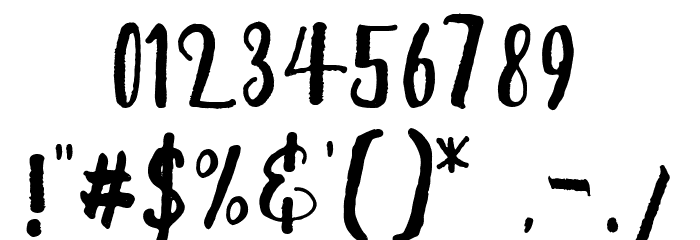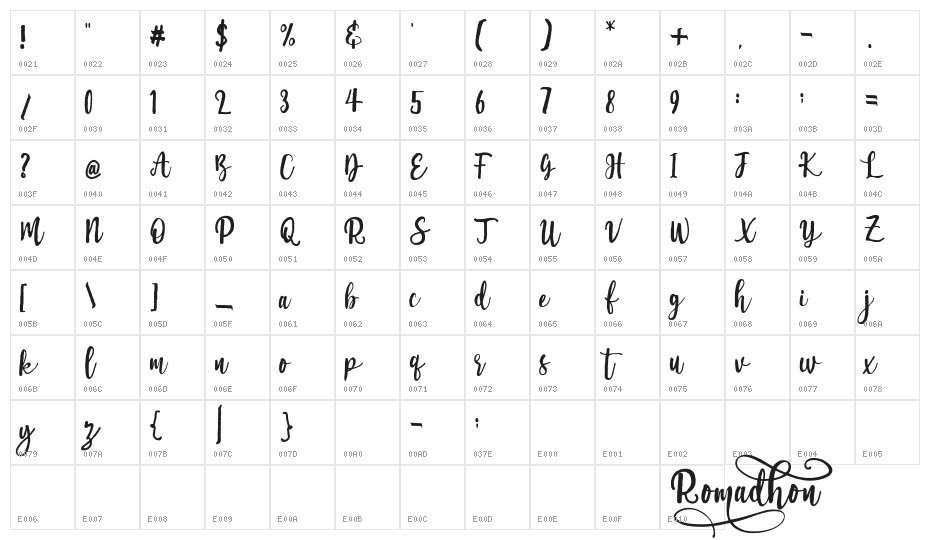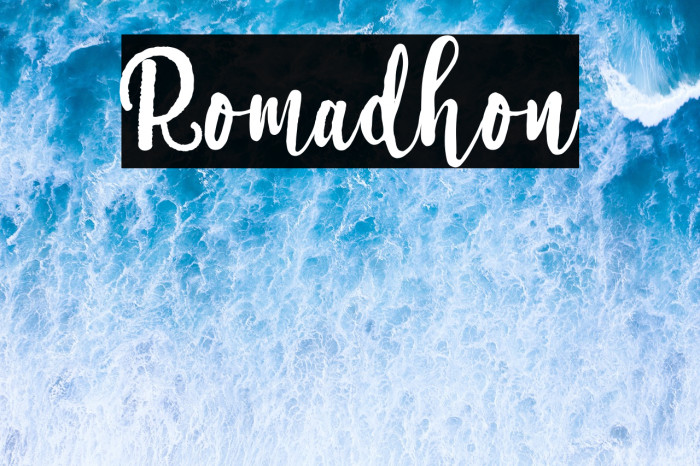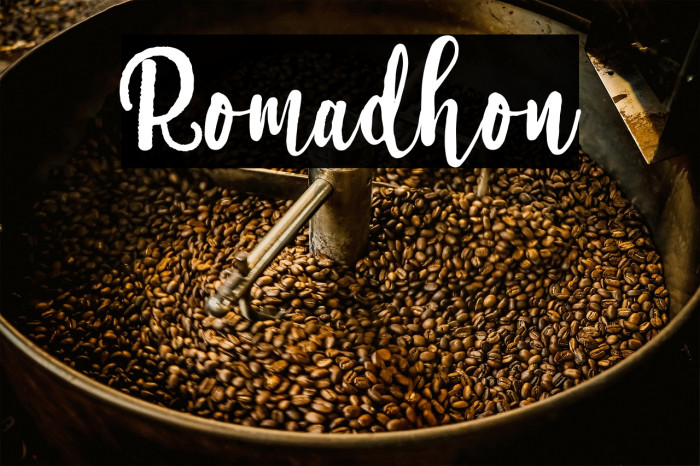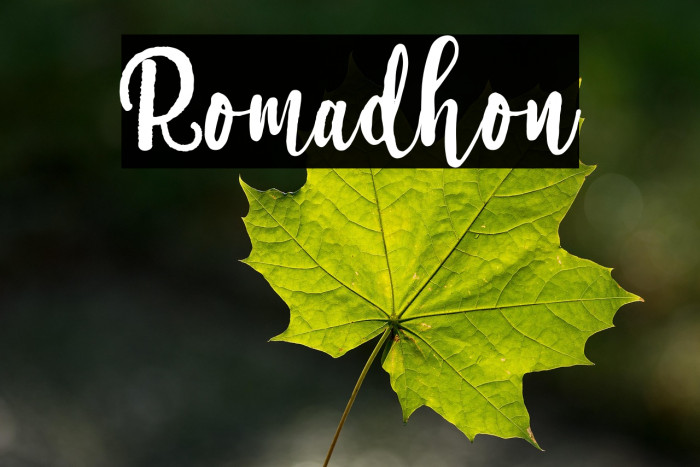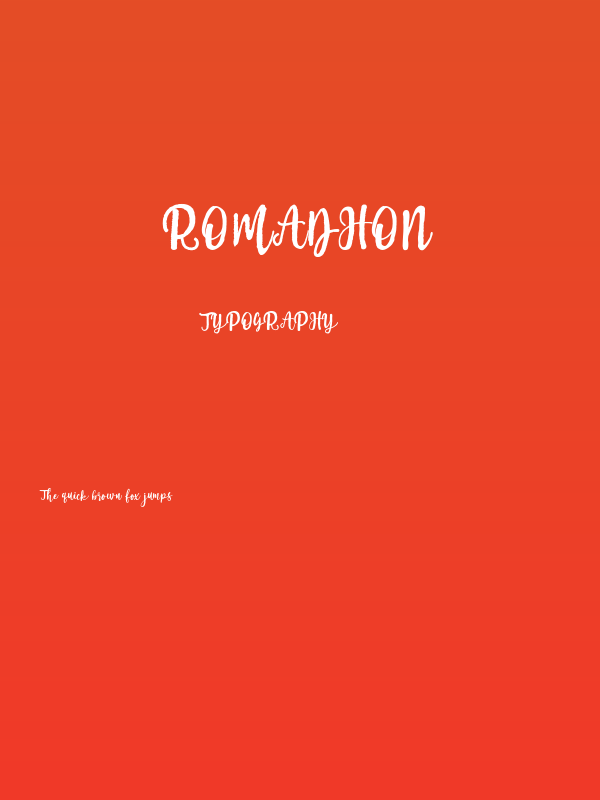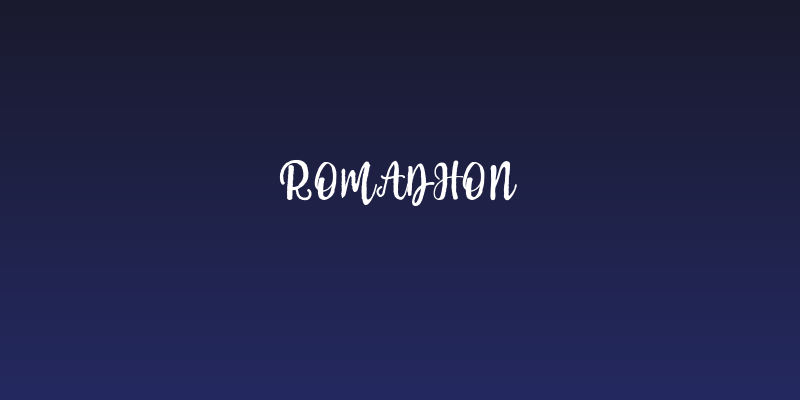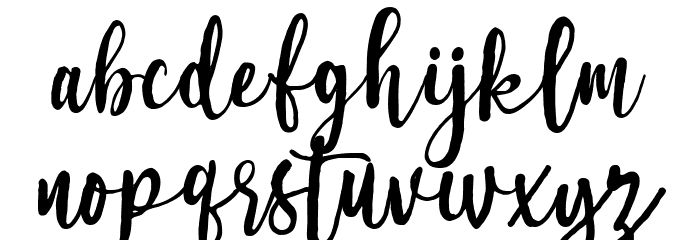
Romadhon Font
Romadhon Description
This font features a bold, handwritten style with a brush-like texture, giving it a lively and dynamic appearance. The letters are slightly slanted, adding a sense of movement and fluidity. The uppercase and lowercase letters maintain a consistent style, with rounded edges and varying stroke widths that create a natural, organic feel. The numbers and special characters are designed to match the overall aesthetic, ensuring a cohesive look across all elements. This font is ideal for projects that require a personal touch or a creative flair.
Proposed ProjectsIdeal for greeting cards, invitations, branding, social media graphics, and creative posters.